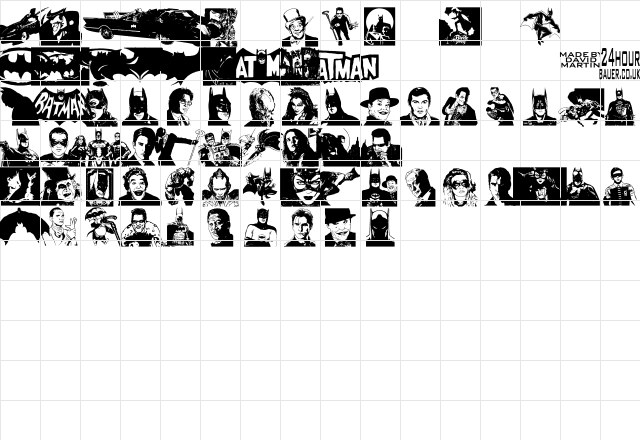
Batman The Dark Knight Regular Free Font
Batman The Dark Knight Regular
Design Context for Batman The Dark Knight
Batman The Dark Knight is a composed and adaptable typeface that performs quietly and consistently across a wide range of design contexts.